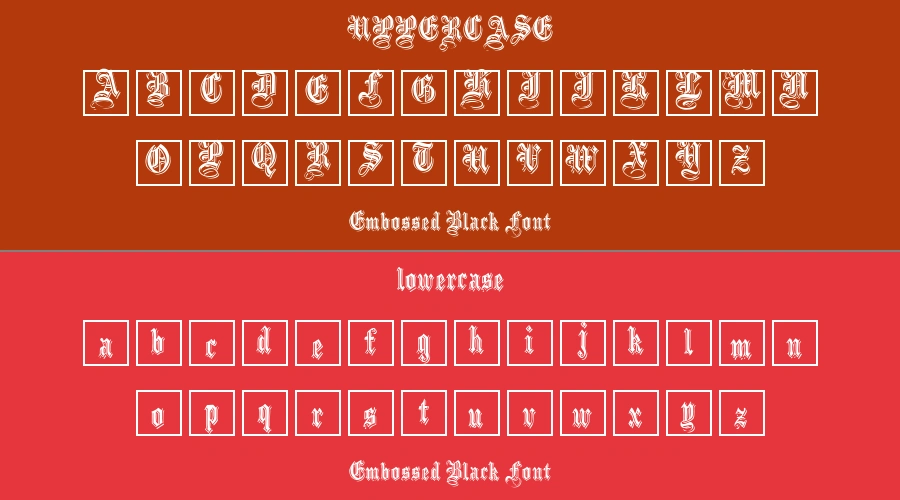
About Embossed Black Font
Designed with precision, Embossed Black Font merges ball terminals with flexibility in every character. This versatility makes it particularly effective for legal documents, where adaptability and refinement directly impact communication quality. Each letterform demonstrates meticulous craftsmanship.
Technical excellence shines through elements like balanced tension and oldstyle figures, enhancing typographic versatility. In warning labels settings, Embossed Black Font proves its worth through superior overlay performance. The thoughtful execution of proportion and user perception ensures professional results.
Embossed Black Font |